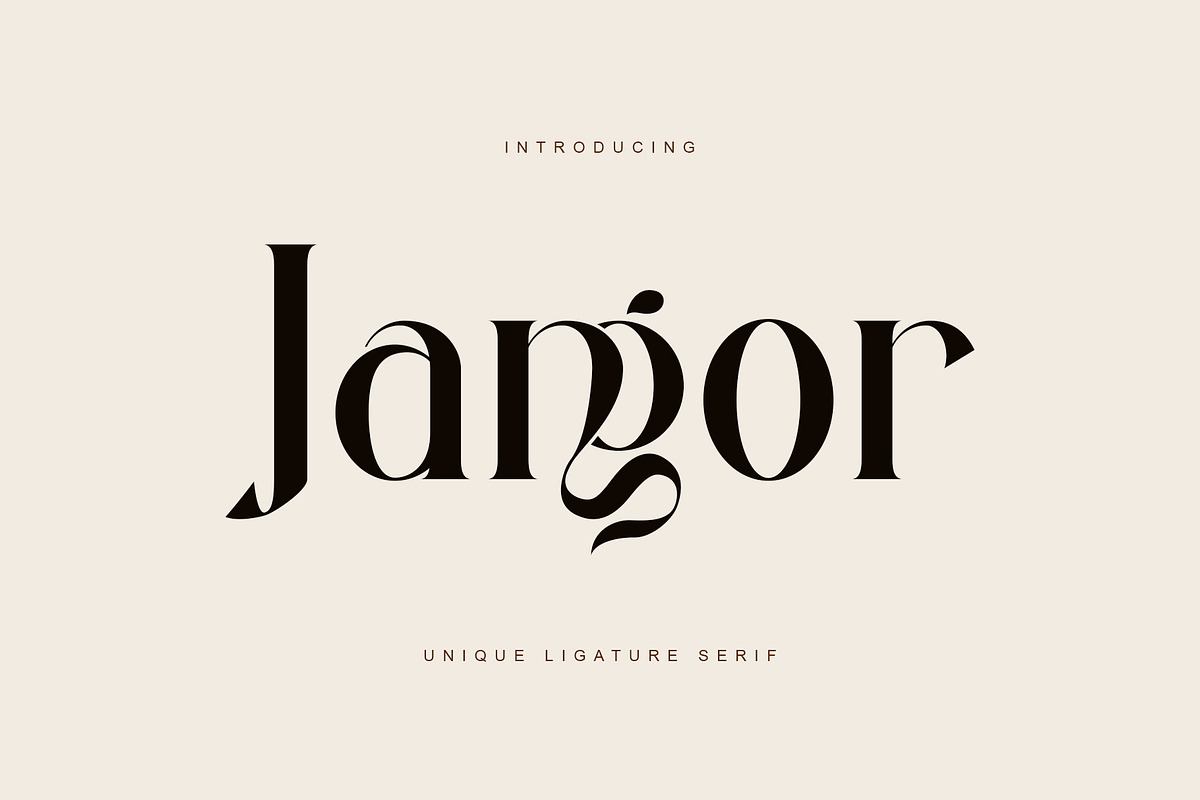
Jangor Ligature Serif Typeface Free Download is a bold and stylish serif font that features elegant ligatures and modern curves. Designed to add a touch of sophistication and originality, Jangor is perfect for luxury branding, editorial layouts, fashion lookbooks, logo design, and upscale packaging. Its unique ligature combinations give your typography a custom-designed, high-end look right out of the box.
With sharp serifs, graceful details, and well-balanced proportions, Jangor Ligature Serif Typeface Free Download brings a refined, modern feel to both headlines and body text. It supports multilingual characters and performs beautifully in both digital and print settings.